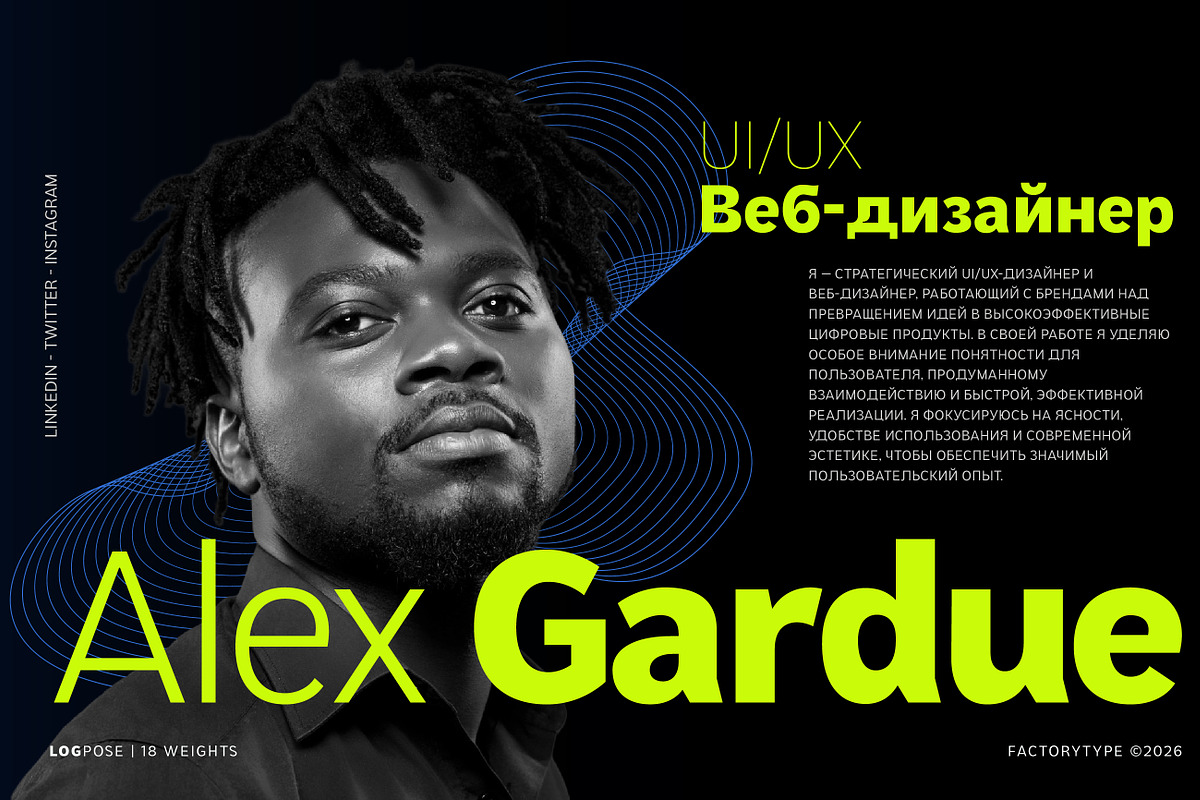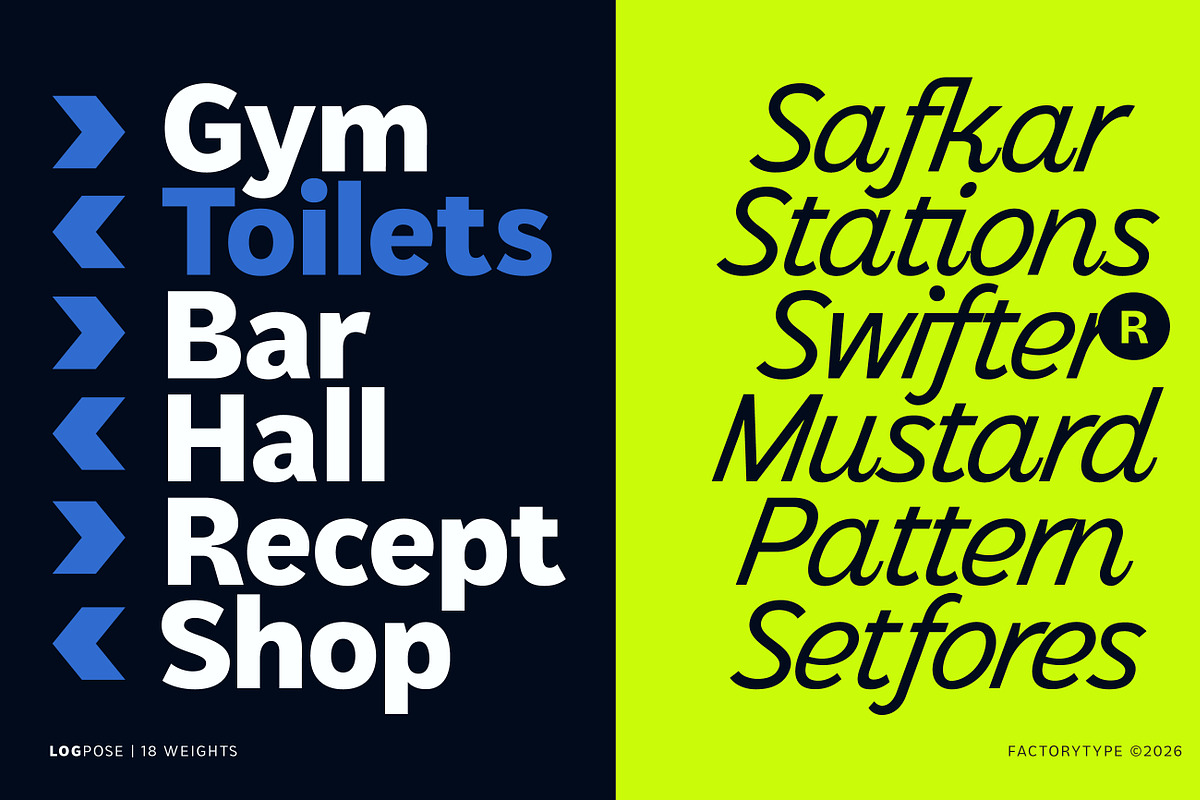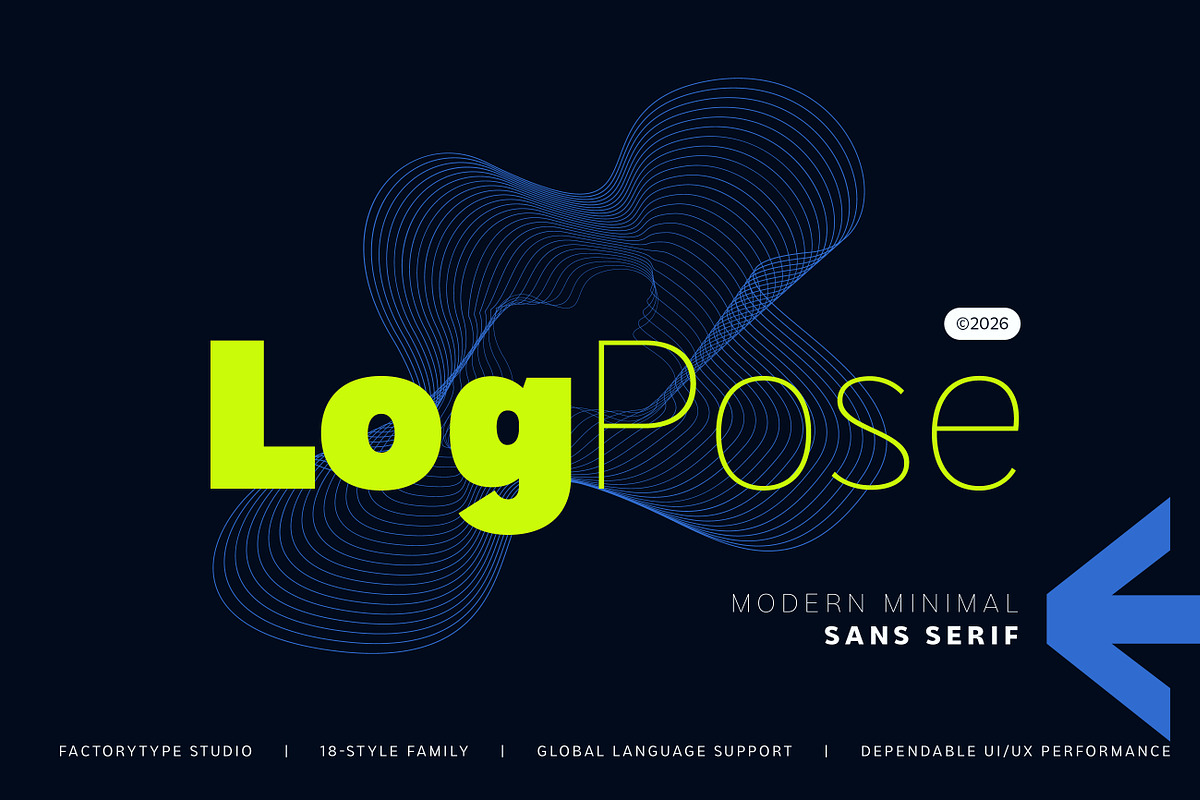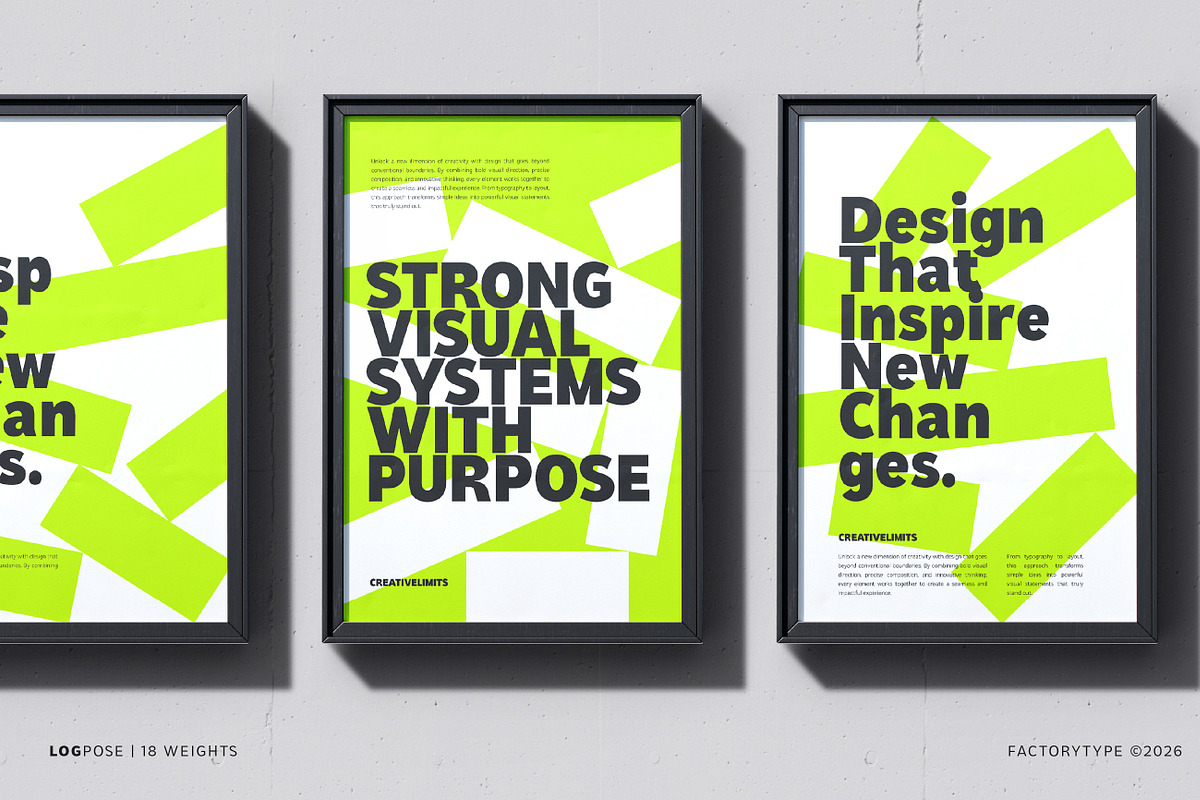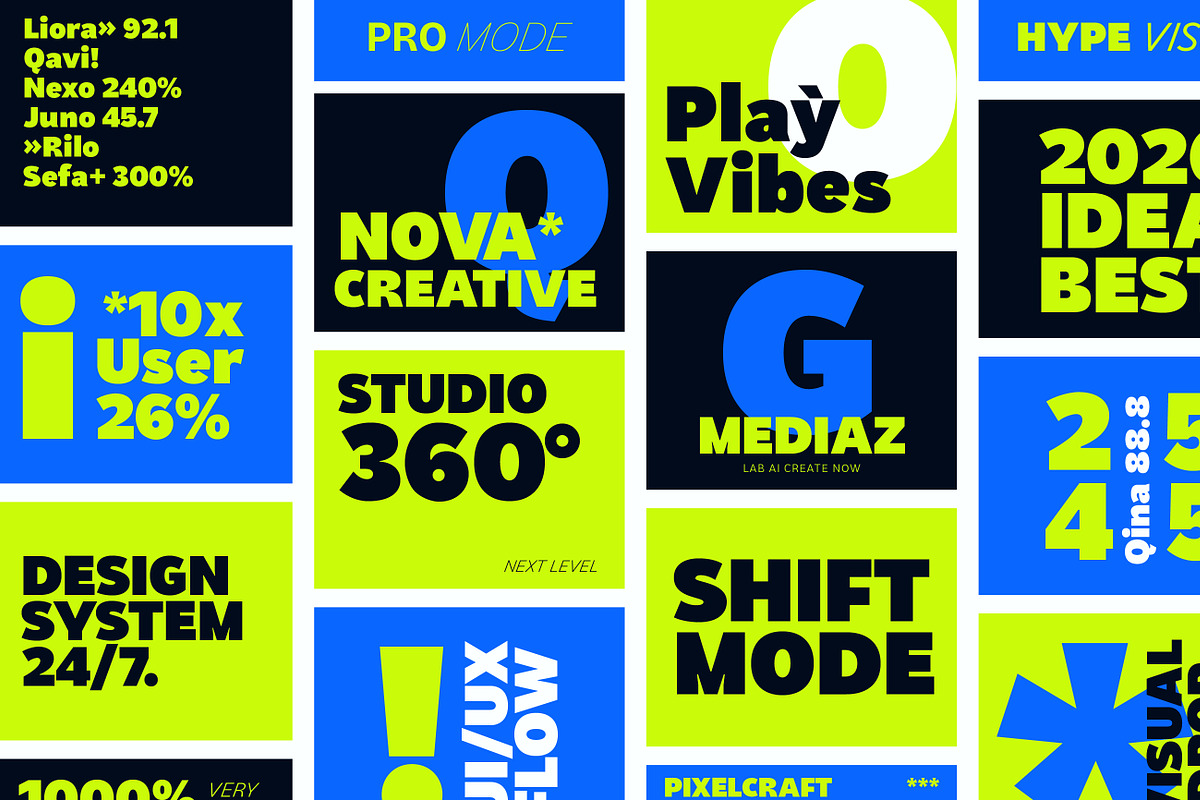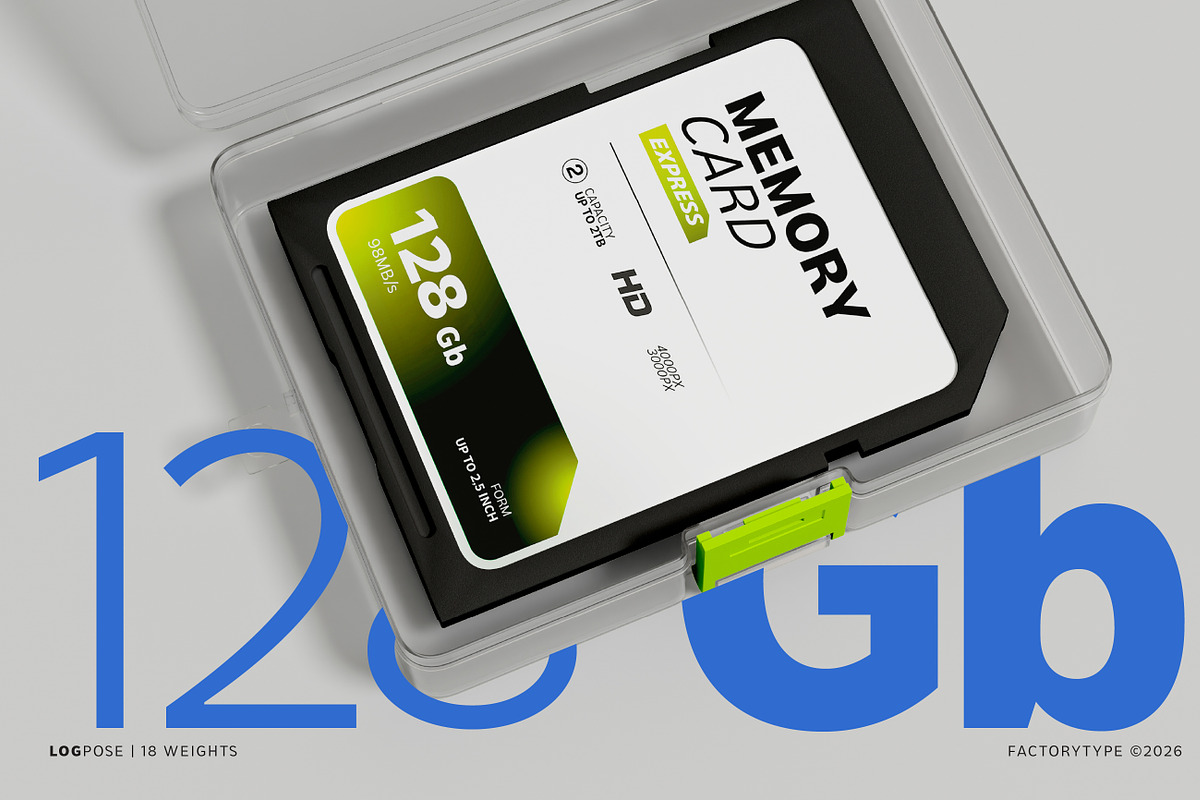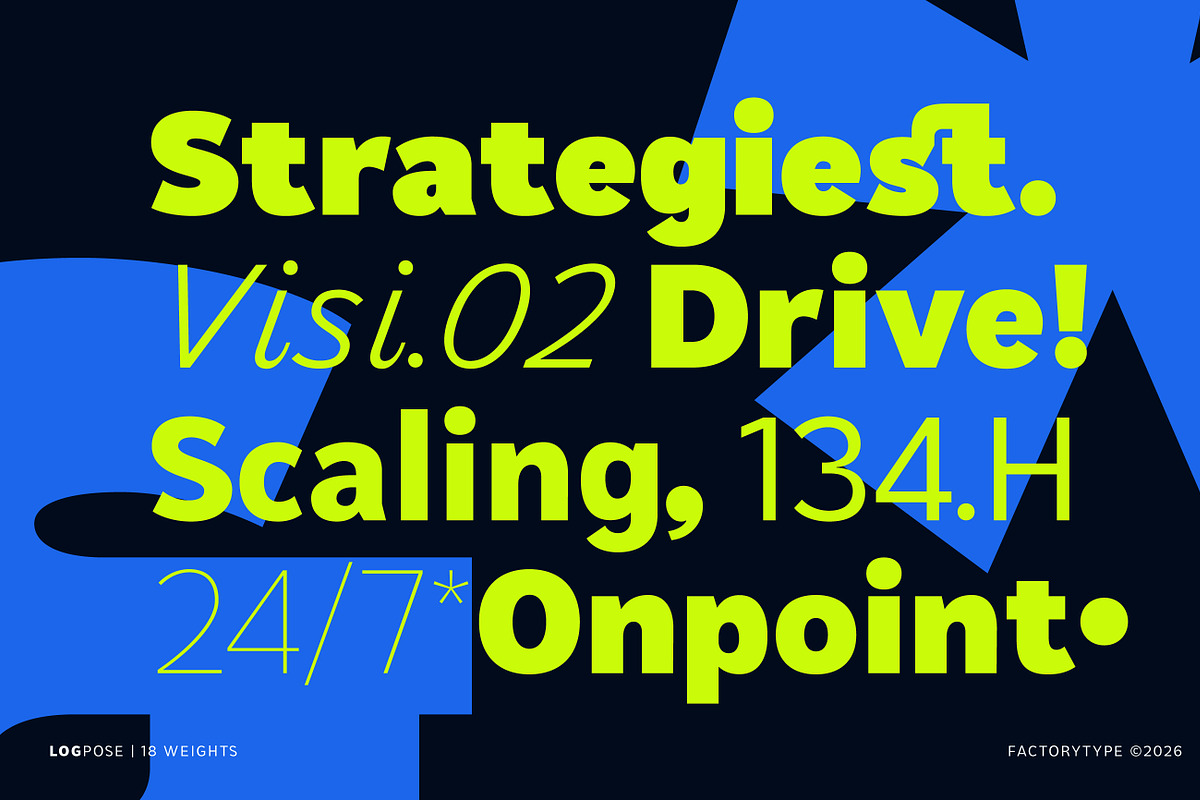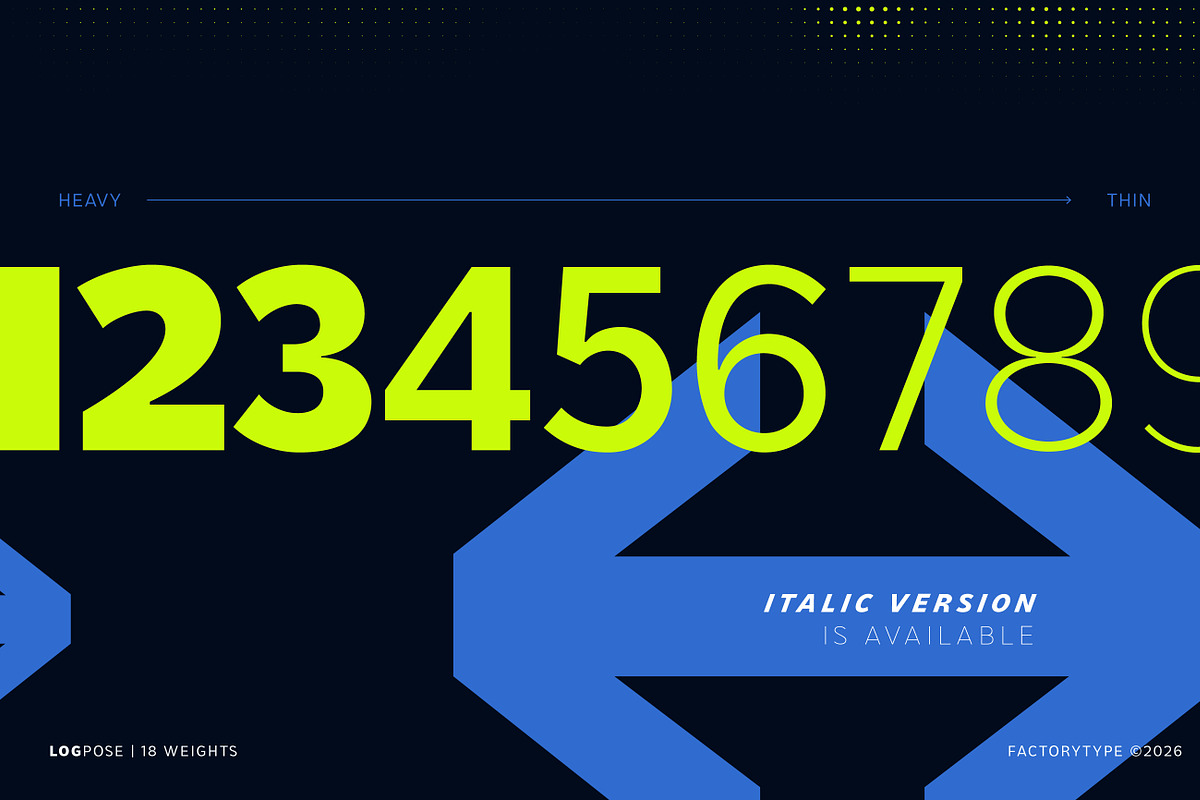
LogPose — Modern Geometric Sans
LogPose — A Modern Geometric Sans with 18 Styles
Elevate your visual storytelling with LogPose, a clean and dependable geometric sans-serif family designed for clarity, balance, and high-performance design. Drawing inspiration from architectural minimalism and future-ready digital aesthetics, LogPose offers a calm, neutral tone that integrates seamlessly into any creative environment.
LogPose is more than just a typeface; it’s a versatile tool for creators. Whether you are crafting cutting-edge brand identities, minimalist editorial layouts, or high-velocity UI/UX interfaces, this family provides the sophisticated simplicity your projects deserve.
With its 18 total styles, LogPose offers a complete typographic spectrum—from the ethereal, airy strokes of Thin to the commanding, rock-solid presence of Heavy. Its refined geometric construction and minimal contrast ensure exceptional readability across both digital screens and premium print materials.
18 Total Styles: 9 Weights (Thin, ExtraLight, Light, Regular, Medium, SemiBold, Bold, ExtraBold, Heavy) plus matching, expressive Italics.
Precise Geometry: Engineered for flawless interaction and navigational clarity.
Pro Character Set: Over 300+ glyphs including essential Latin characters and refined symbols.
Global Accessibility: Comprehensive multilingual support for over 100+ languages.
Branding & Logo Design: Create a lasting, professional impression.
UI/UX & Web: High-legibility for apps, dashboards, and modern websites.
Social Media: Make your content stand out with a clean, aesthetic look.
Editorial & Print: Ideal for magazine mastheads, posters, and minimalist packaging.